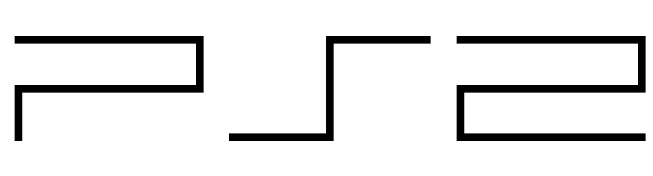
PlayStation Font
Company & ConsolesPlayStation is a line of video game consoles created and developed by Sony Interactive Entertainment. It includes the original PlayStation, PlayStation 2, PlayStation 3, PlayStation 4, and PlayStation 5.
The iconic PlayStation logo, created by designer Manabu Sakamoto, showcases a 3D design with the letters "PS" seamlessly incorporated. The logotype beneath utilizes a font similar to Zrnic, designed by Typodermic Fonts.